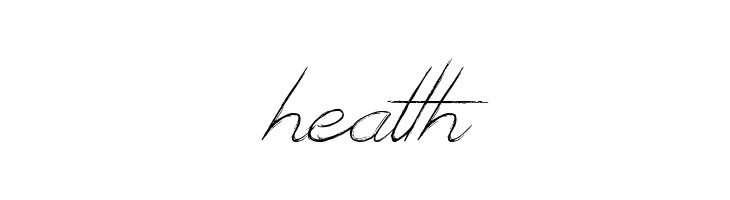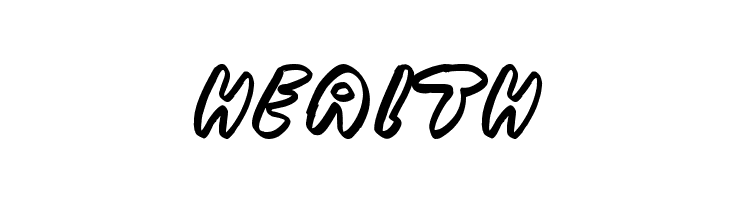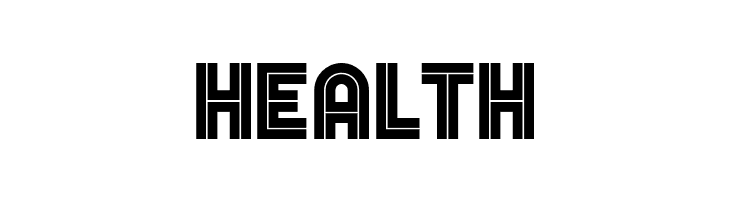
A lively handwritten font with fluid strokes and playful character.
A lively and dynamic handwritten font with fluid, irregular strokes.
A bold, handwritten font with a dynamic and energetic style.
( Fonts by Andi Moz )
A bold, brush-style font with a dynamic and handcrafted appearance.
( Fonts by Masa Aska Sanurumi )
An ornate, gothic-style font with intricate details and a spooky vibe.
( Fonts by Kimberly Geswein )
Playful handwritten font with rounded edges.
Bold, distressed Western-style display font with slab serifs.
Bold, distressed slab serif with a vintage Western feel.
( Fonts by AEN Creative Studio )
A bold, dripping display font ideal for horror or Halloween themes.
( Fonts by olivetype )
( Fonts by Pelle Piano - hem.passagen.se/spsweet/index3.html )
A bold slab serif font with strong, well-defined characters.
( Fonts by Graham Meade - GemFonts )
A classic serif font with elegant lines and high contrast, perfect for sophisticated designs.
( Fonts by Bree Gorton )
A modern, narrow sans-serif font with clean lines and balanced spacing.
( Fonts by Graham Meade - GemFonts )
A bold, playful font with a unique outlined, three-dimensional style.
( Fonts by Graham Meade - GemFonts )
A medieval-inspired font with sharp serifs and unique cross-like details.
( Fonts by Graham Meade - GemFonts )
A bold, geometric font with decorative serifs and unique character details.
( Fonts by www.fenotype.com )
A bold, decorative font with concentric circle patterns creating depth and movement.
( Fonts by Bree Gorton )
A bold, modern sans-serif font with clean lines and excellent readability.
( Fonts by Nick Curtis - www.nicksfonts.com )
A bold, playful font with rounded, whimsical characters.
( Fonts by Nick Curtis - www.nicksfonts.com )
A bold, playful font with rounded, chunky characters and a whimsical style.
( Fonts by Manfred Klein - manfred-klein.ina-mar.com )
A bold, blackletter-inspired font with dramatic, angular strokes.
( Fonts by Graham Meade - GemFonts )
A bold, striped, 3D font with a modern and playful style.
( Fonts by Nick Curtis - www.nicksfonts.com )
A bold, elongated serif font with a modern and elegant style.
( Fonts by ShyFonts )
A bold, oblique font with a modern and dynamic style.
( Fonts by ShyFonts )
A modern sans-serif font with geometric shapes and uniform stroke width.
( Fonts by ShyFonts )
A sleek, modern, and light oblique font with thin strokes and normal spacing.